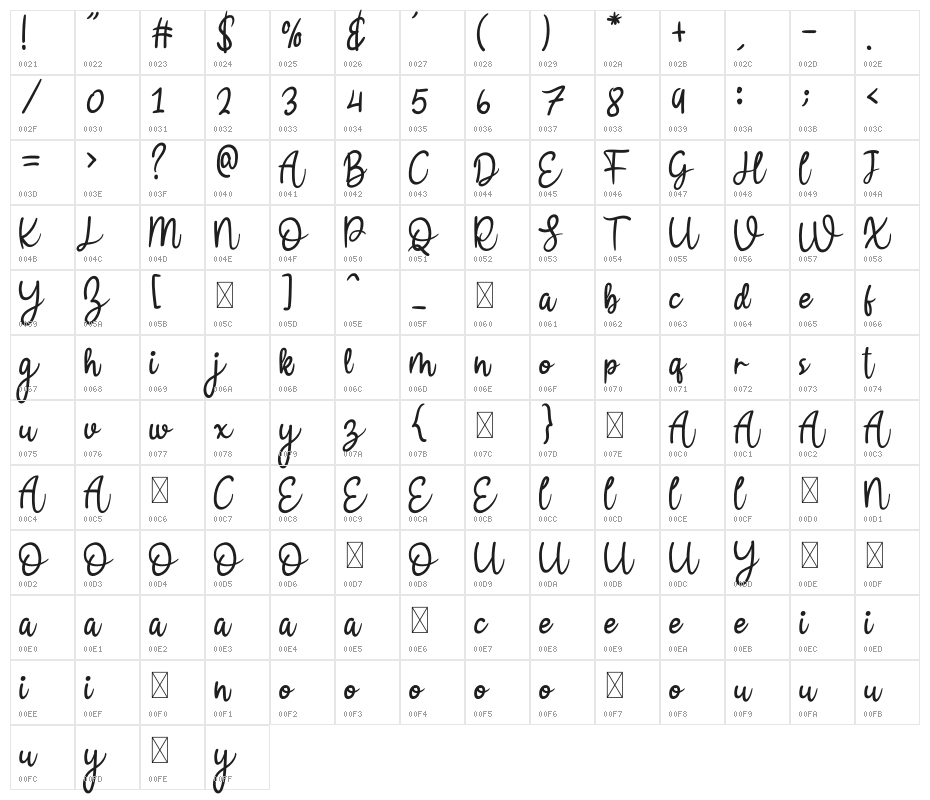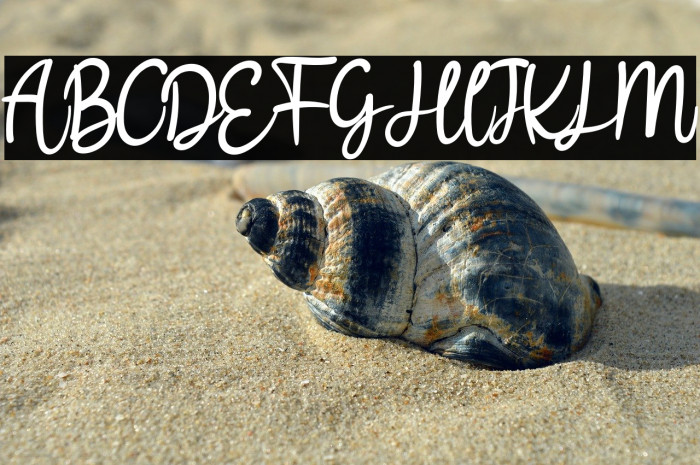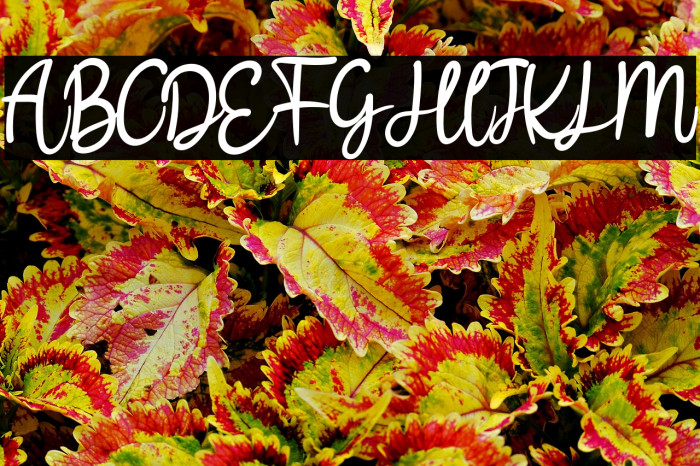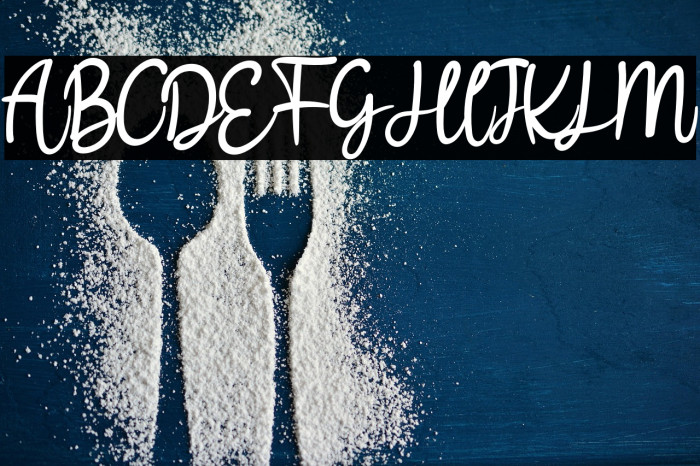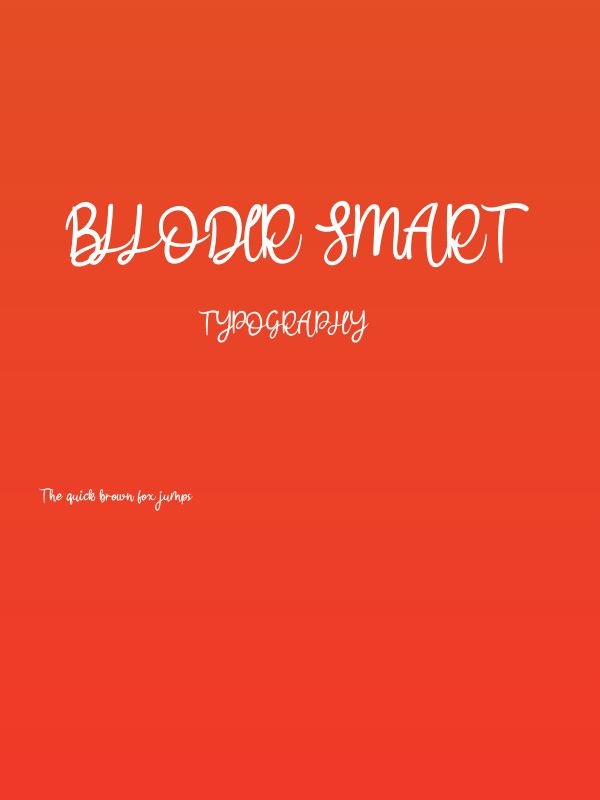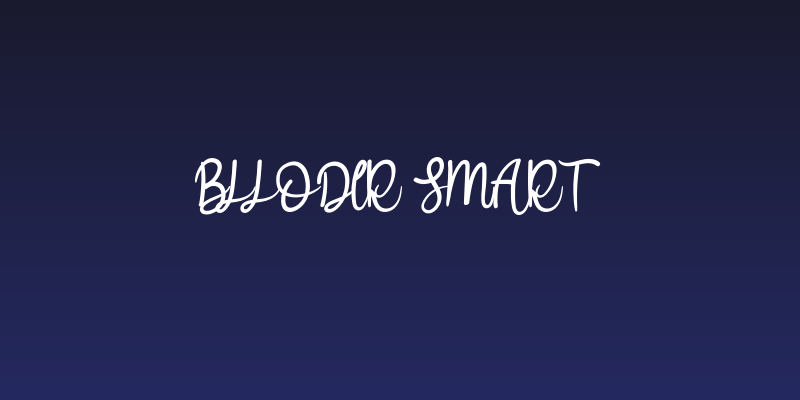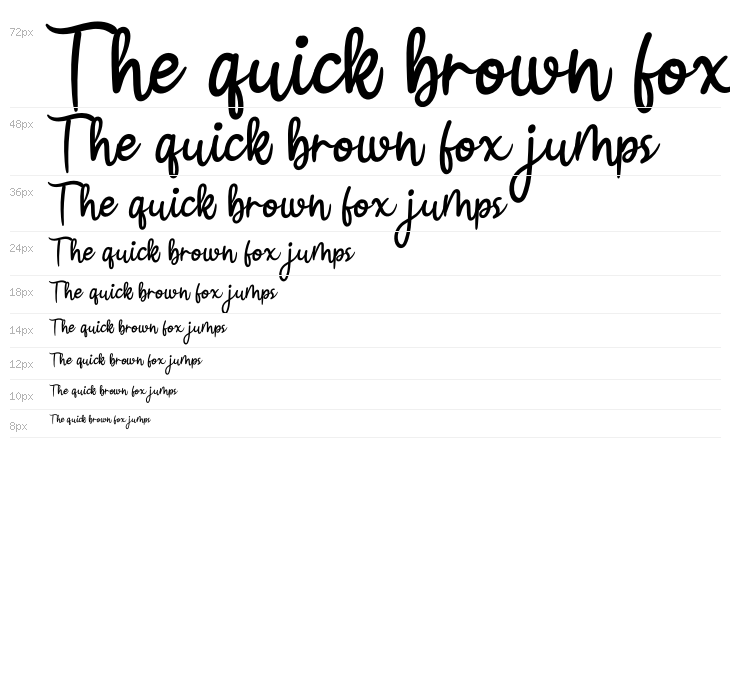
Bllodir Smart Font
Bllodir Smart Description
A playful, handwritten script font with fluid, connected strokes and a casual, informal appearance. The characters are rounded and slightly irregular, mimicking natural handwriting with varying stroke thickness.
| Overall Style | Decorative, Playful, Casual |
| Use Case | Logos, Headlines, Invitations, Social media posts |
| Proposed Projects | Greeting cards, invitations, personal branding, quotes, social media graphics. |